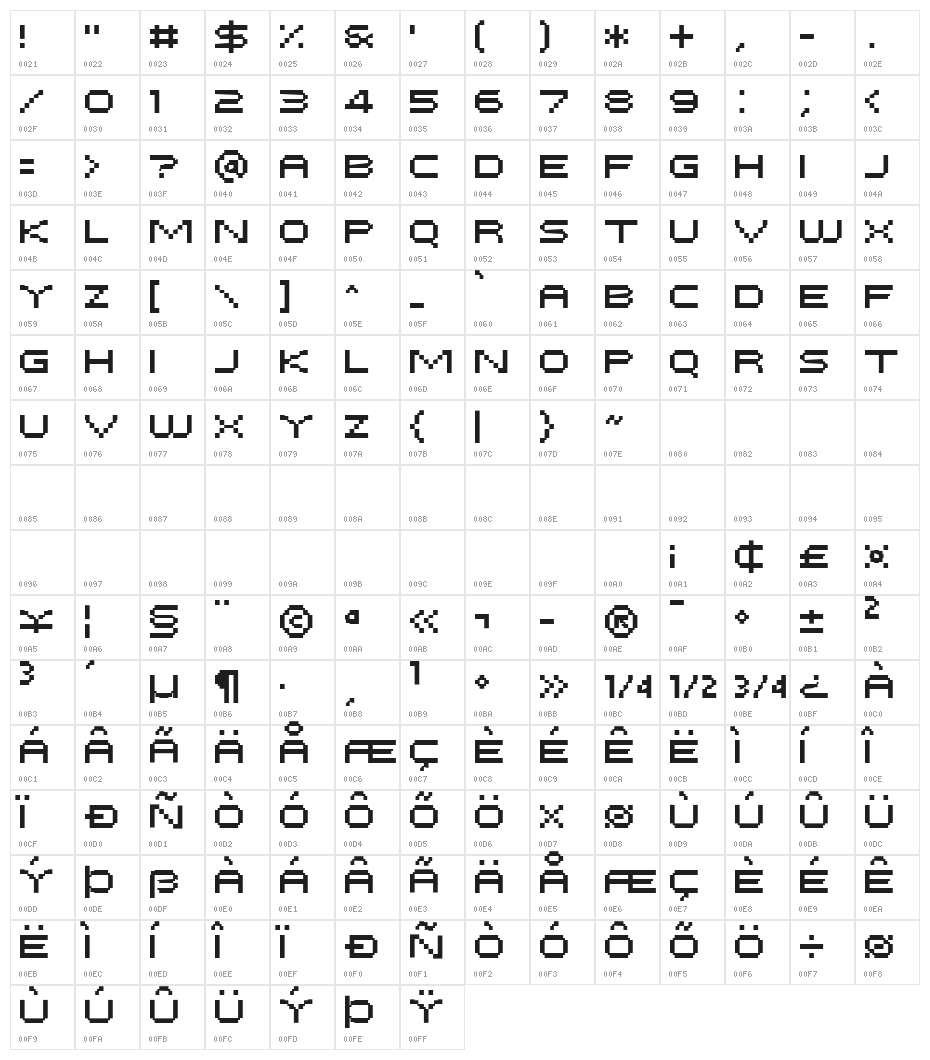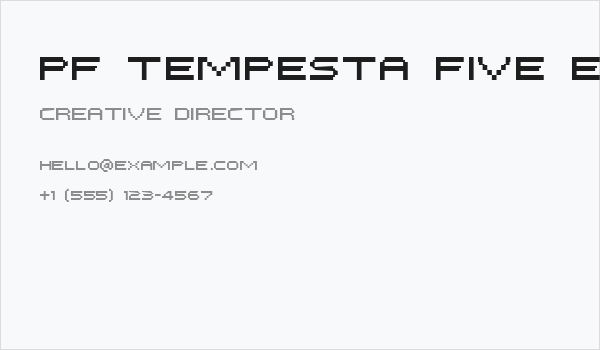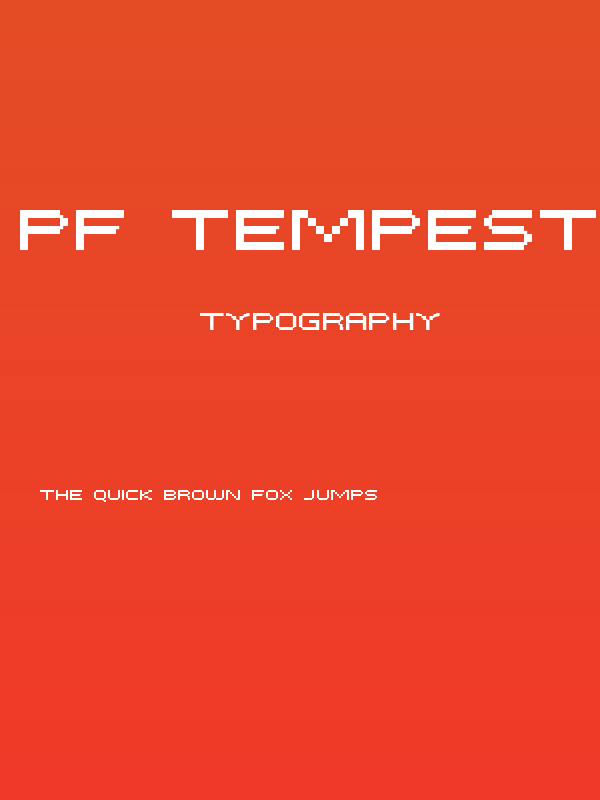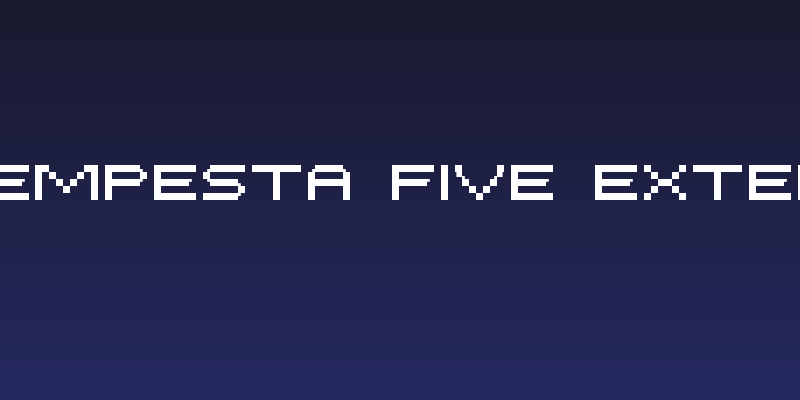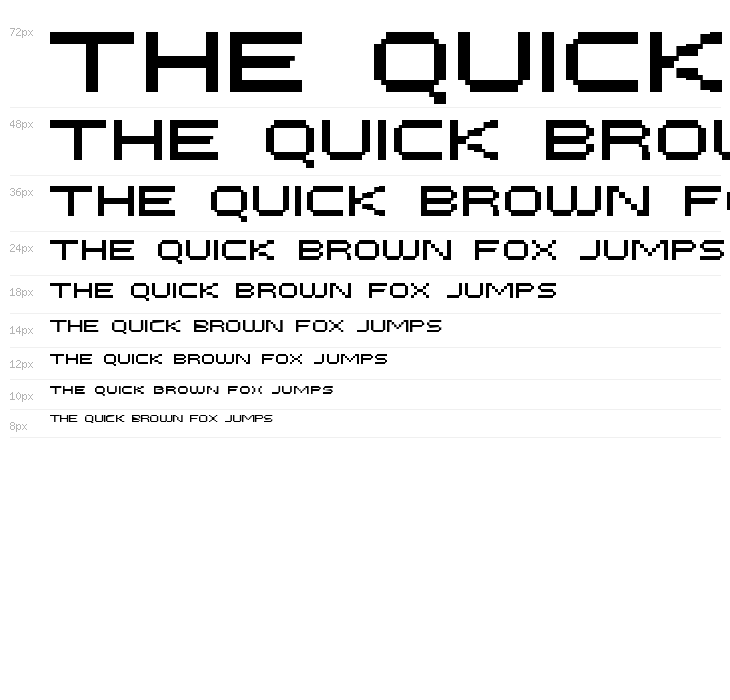
PF Tempesta Five Extended Font
PF Tempesta Five Extended Description
This font features a distinct pixelated style reminiscent of early digital and arcade aesthetics. Each character is constructed with a blocky, grid-like appearance, giving it a retro, technological feel. The uppercase and lowercase letters maintain a consistent height, contributing to a uniform and cohesive look. The numerals and special characters follow the same pixelated design, ensuring visual harmony across all glyphs. This font's unique style makes it stand out, capturing the essence of vintage computing and gaming culture.
| Use Case | Headlines, Logos, Digital Art |
| Proposed Projects | Ideal for projects that aim to evoke nostalgia, such as retro video games, tech-themed posters, or digital art installations. |